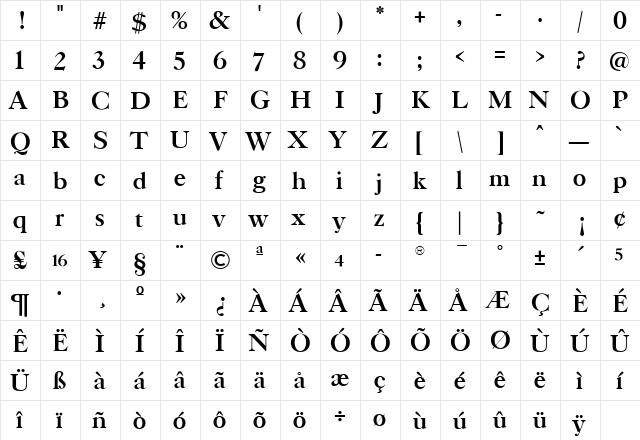
TFCaslonDisplay Bold Font Preview
TFCaslonDisplay Bold
Design Context for TFCaslonDisplay Typeface
TFCaslonDisplay is built around its visual character rather than neutral utility — its distinctive forms are designed to make an impression at display sizes. The heavy weight commands attention and anchors typographic hierarchies.
Font Pairing: Pair with a clean neutral sans-serif for body copy to let TFCaslonDisplay's character lead without overwhelming the composition.
Pro Tip: Use TFCaslonDisplay exclusively at display sizes — it was designed to be seen, not read at length. Let a neutral companion handle body copy.